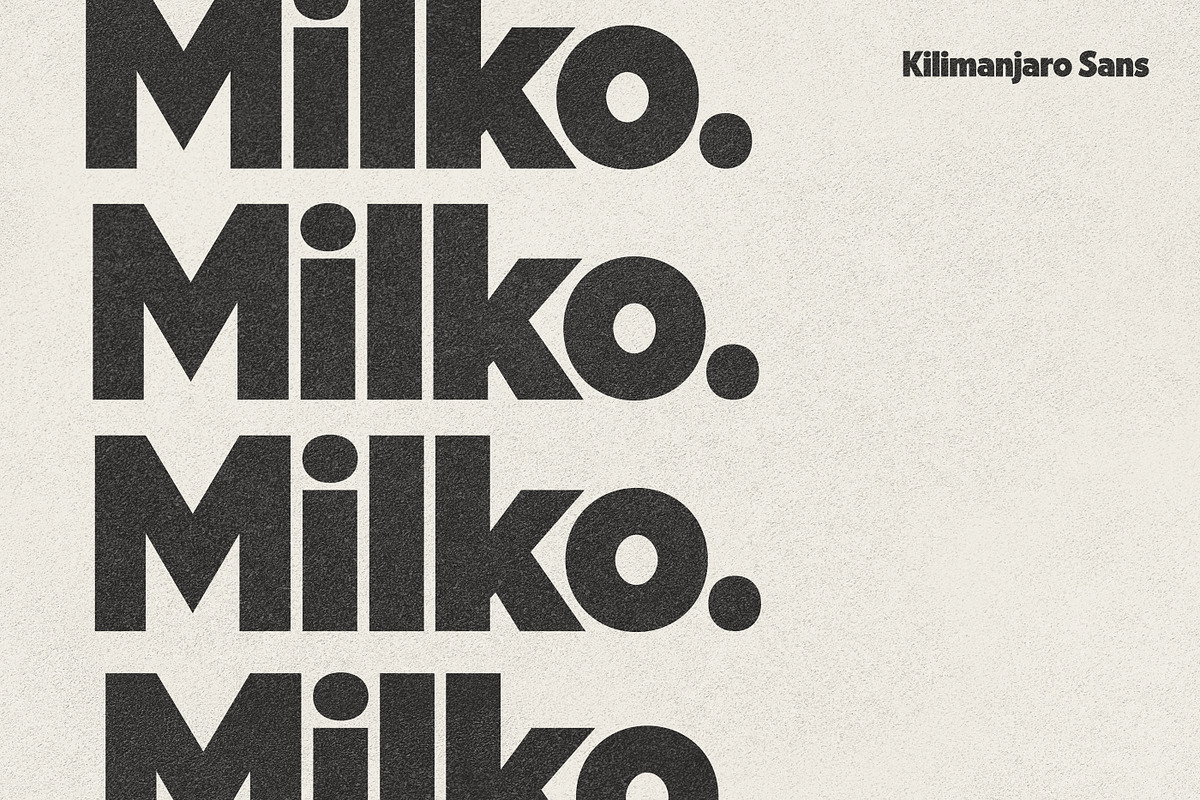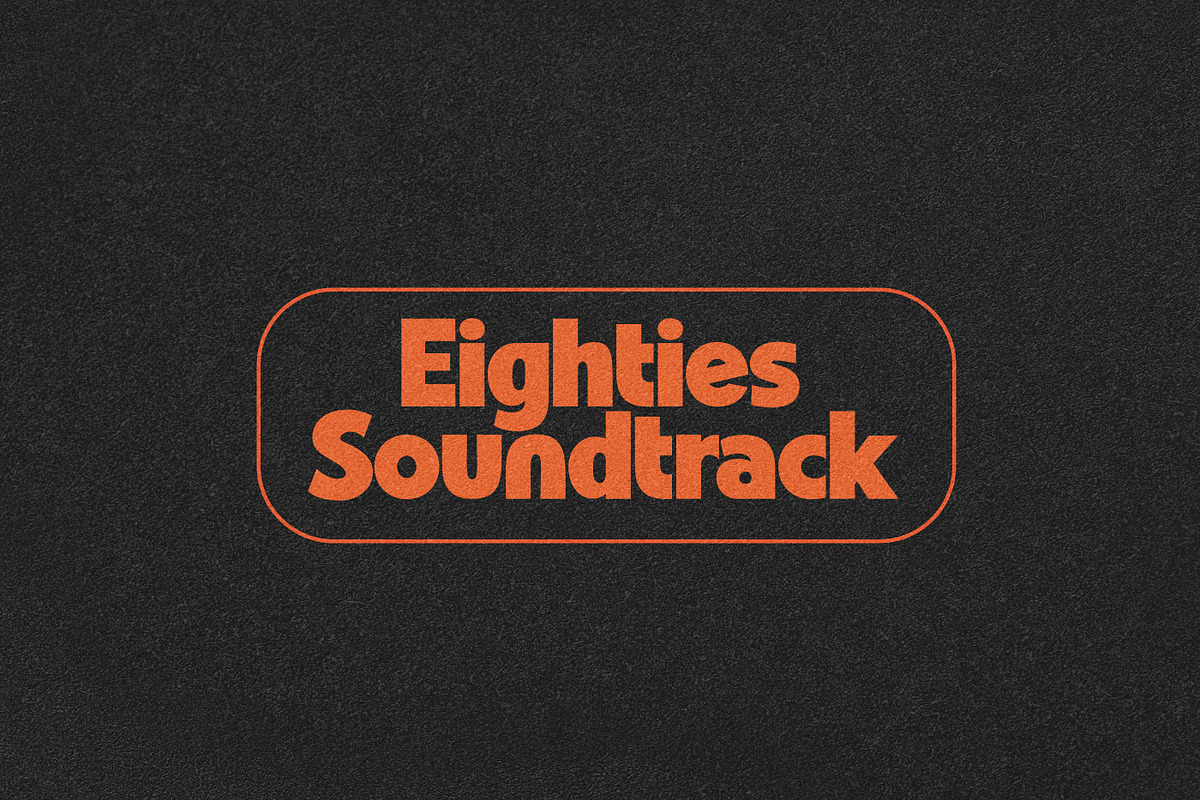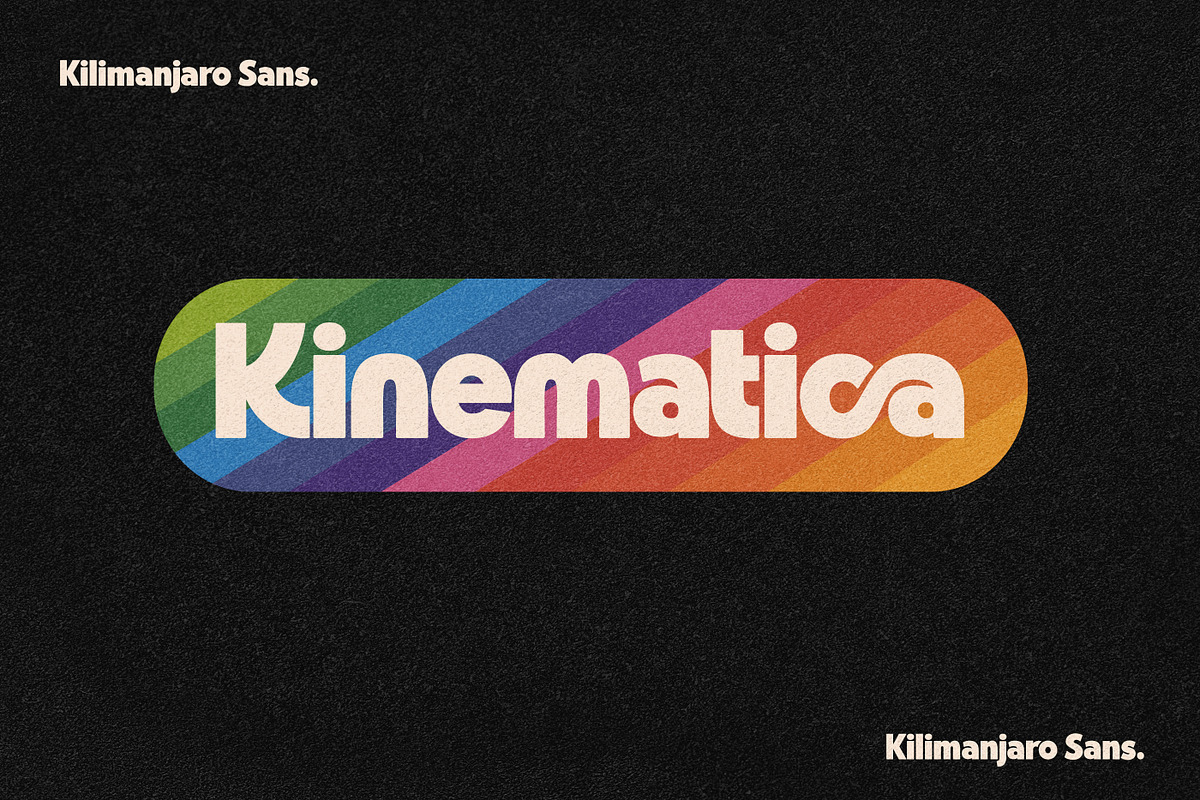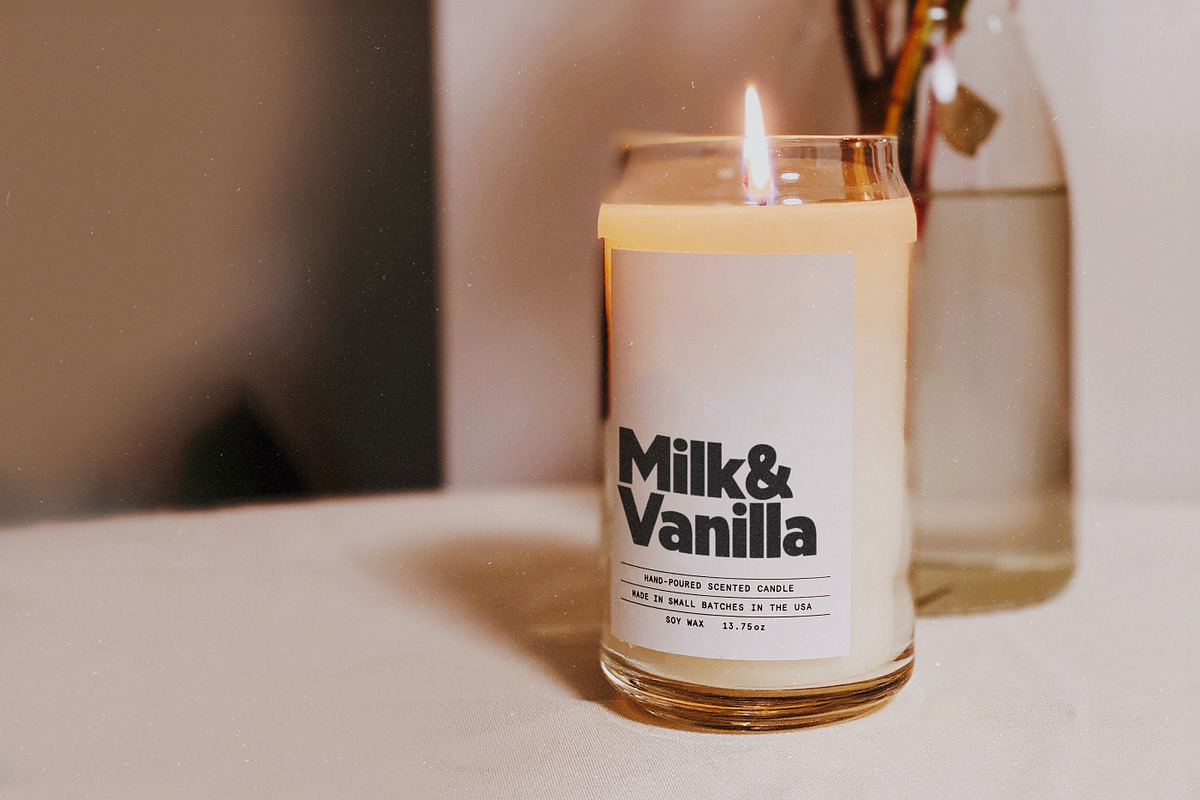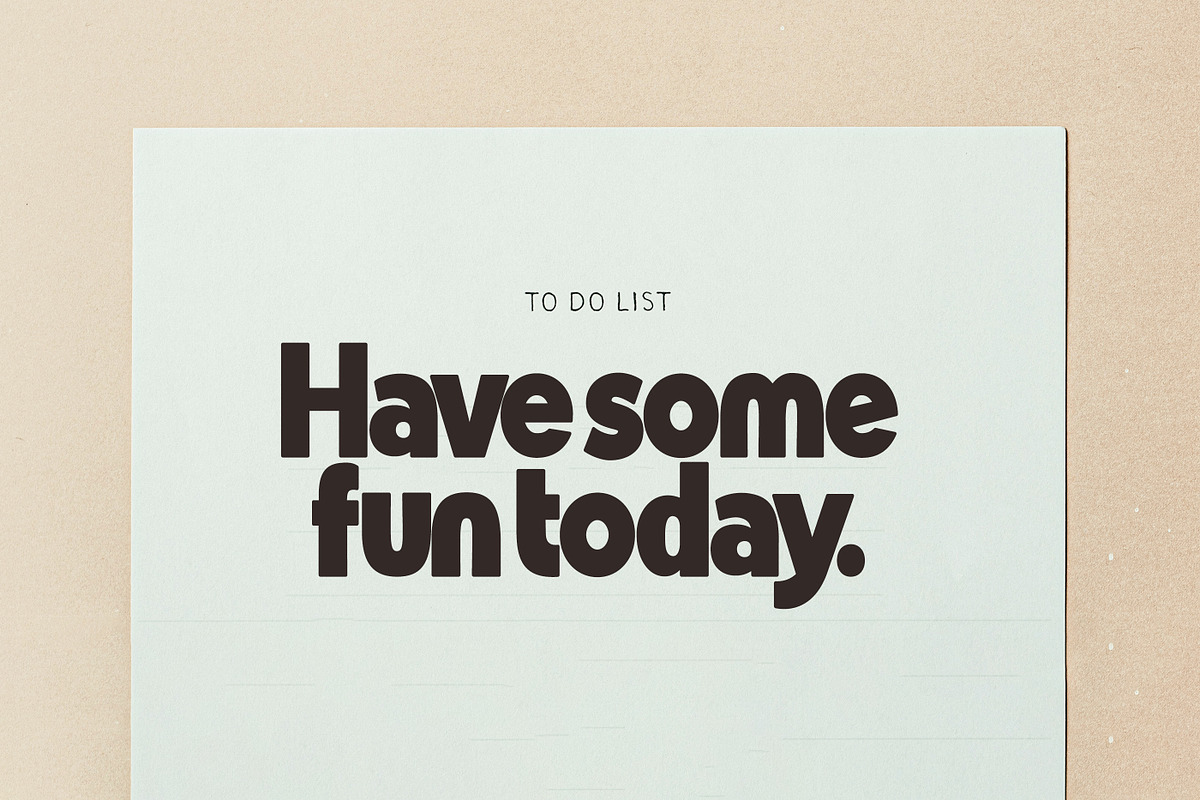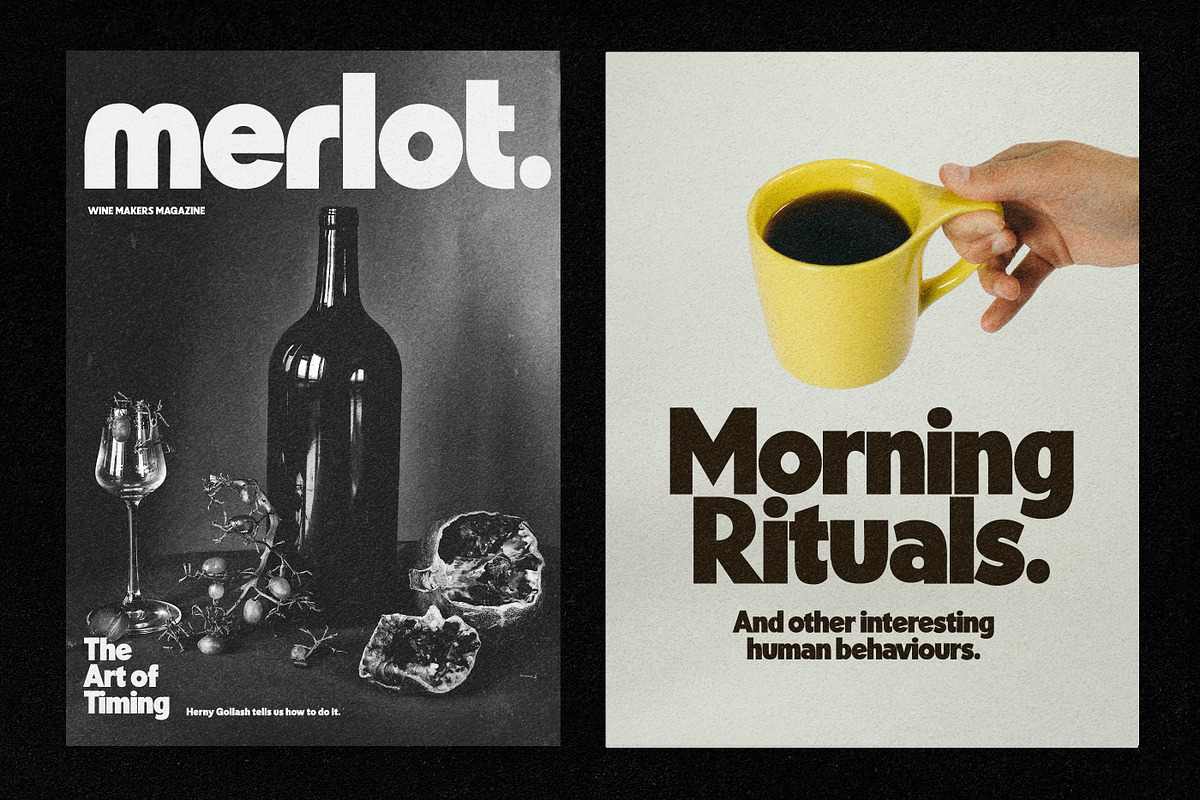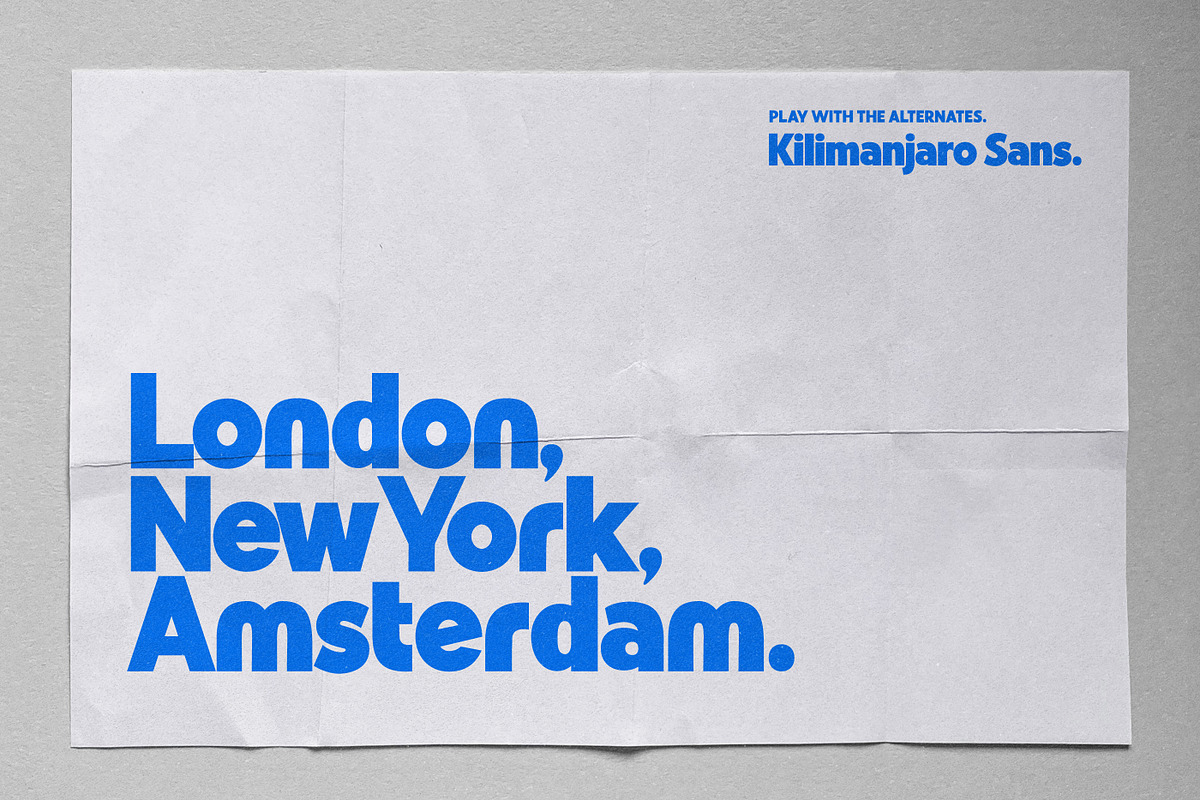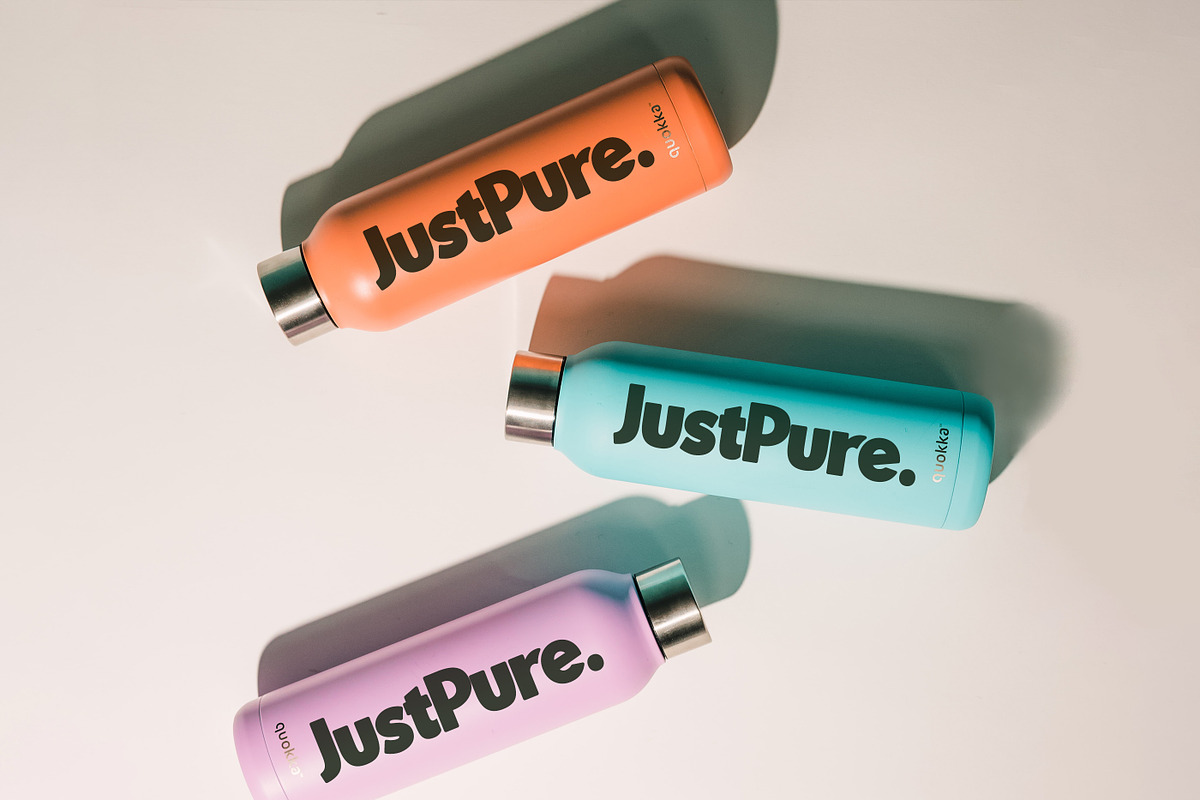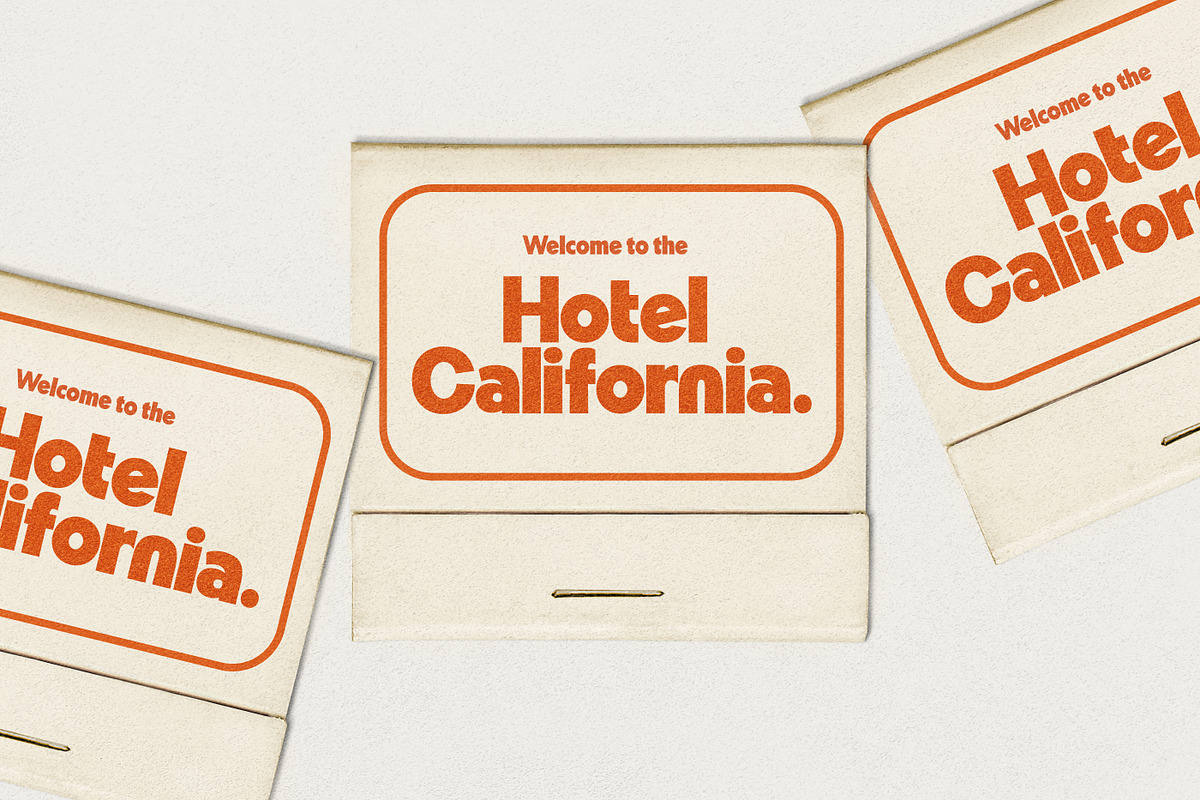
Kilimanjaro Sans (36 fonts)
Get fully retrospective with the new, bold Kilimanjaro Sans - a loud and formidable retro-inspired font with extra Opentype alternates and discretionary ligatures to add an even groovier feel. Kilimanjaro was made intending to bring a little 70's and 80's retro back into the 21st Century realm of design. Add even more groove by tightening your letter spacing for large text, and leave it as it is for smaller body type.
An incredibly versatile typeface - morphing from modern to retro or anything in between. I've included as many previews as possible to show you a good spectrum of what it can do :)
There is a condensed version and Slanted version of the font included. You also have the choice of 5 differing degrees of rounded edges in the fonts.